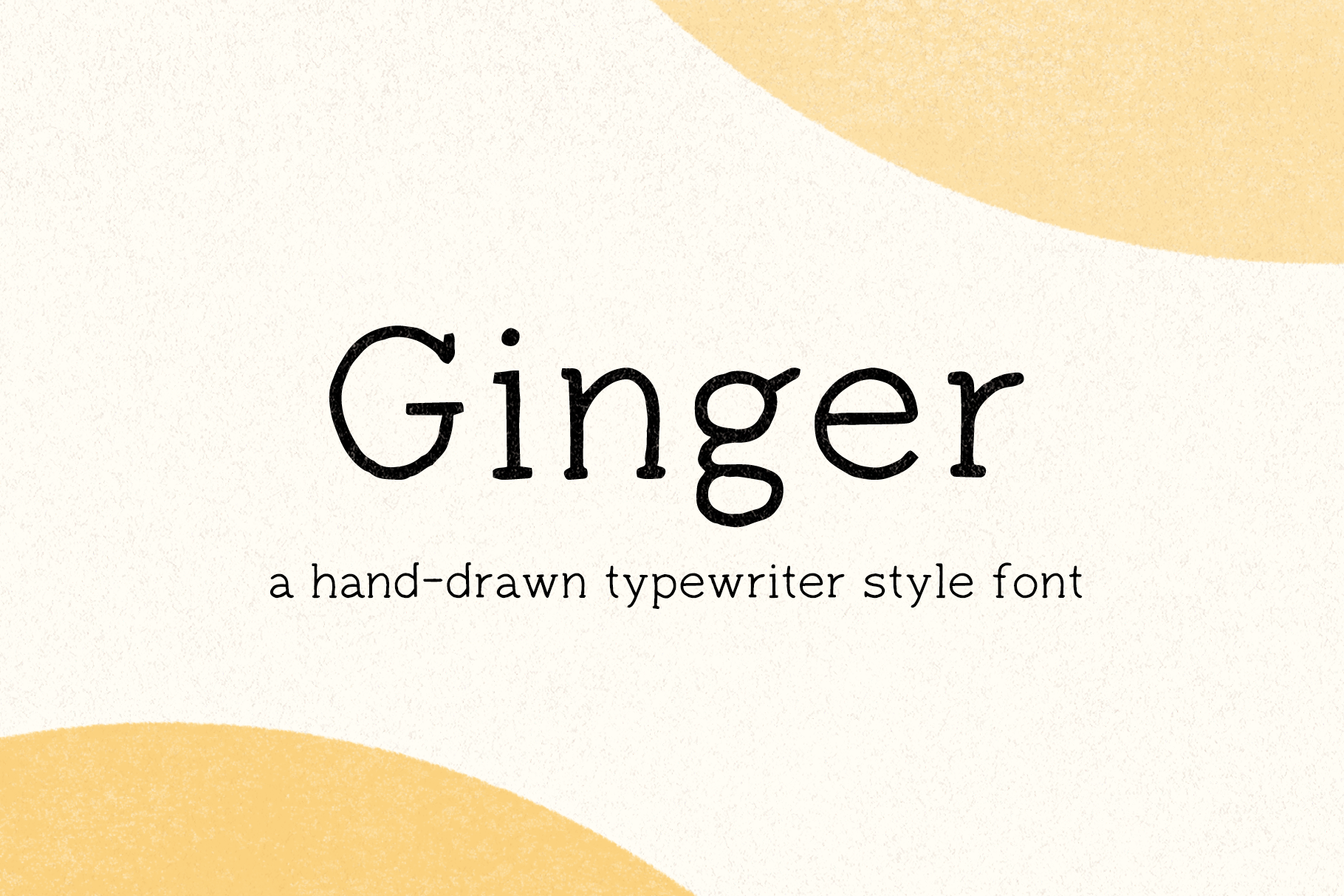
Ginger - Hand Drawn Typewriter Font
GINGER - a cute and versatile hand-lettered typewriter font. Its hand drawn style provides a slightly imperfect look, perfect to add a handmade touch to your projects. Use for logos, quotes, invitations, blog posts, business cards, presentations and more!
• Regular, Italic, Bold, Bold Italic (uppercase & lowercase)
• Numbers & Punctuation